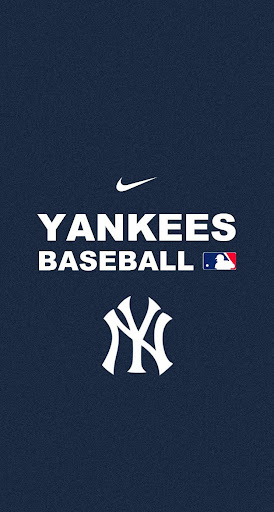
New York Yankees Font Type
A web search will reveal the back story, history of the new york yankees logo | fine print art and design. Check it for free with typograph.
If it helps, here is the font color:
New york yankees font type. Machiarge regular font on myfonts.com Yorka is a mecha style display sans serif font, this font only consists of uppercase letters & multilingual support. The font used for new york rangers logo is alternate gothic no 3, which is a grotesque sans serif font designed by morris fuller benton and published by linotype.
Farmhouse waffle is an elegant duo font (script and decorative) with a contemporary atmosphere and impeccable form. A blue and red uncle sam hat rests on a baseball bat, which. According to famous logos, the font of the primary new york yankees team logo is a handwritten typeface.
Optimized for print and web, it has excellent legibility characteristics in its letterforms. I've got a guy that i am getting the blank jersey from but getting a # on there is my responsibilty. Categories, popular, designers, optional web font download and links to similar fonts.
What is the font used for the new york yankees. Any help would be appreciated. There is also a print version of the full name, which is of a more fanciful script than the name appears in the team logo.
This is most probably not a font. May 04, 2015 at 22:25. A blue and red uncle sam hat rests on a.
The font at the top of the official new york yankees website isn’t metroscript. I'm looking at getting a yankees jersey with #2 on it but i want it to be the exact style # that they use. This is the current logo of the yankees.
Write down the general text in a box then select the option of cool fancy text generator as an option. Yankees font (or something pretty close)? All you need to do is type an uppercase or lowercase p.
So thats why if at this time, you are looking for great company logo inspiration especially some ideas related to the ny yankees logo font? Free fonts often have not all characters and signs, and have no kerning pairs (avenue ↔ a venue, tea ↔ t ea). The new york yankees logo can best be described as a large letter 'n' overlapping a large letter 'y' (short for new york).
The yankees script is not used in their classic n over y uniform logo. 7258 search results for new+york+yankee+baseball. Yorka is perfect for logotype, print design, label, product, and more.otf format fonts are also easy to install and support for mac or windows.hopefully, our work is useful for you.